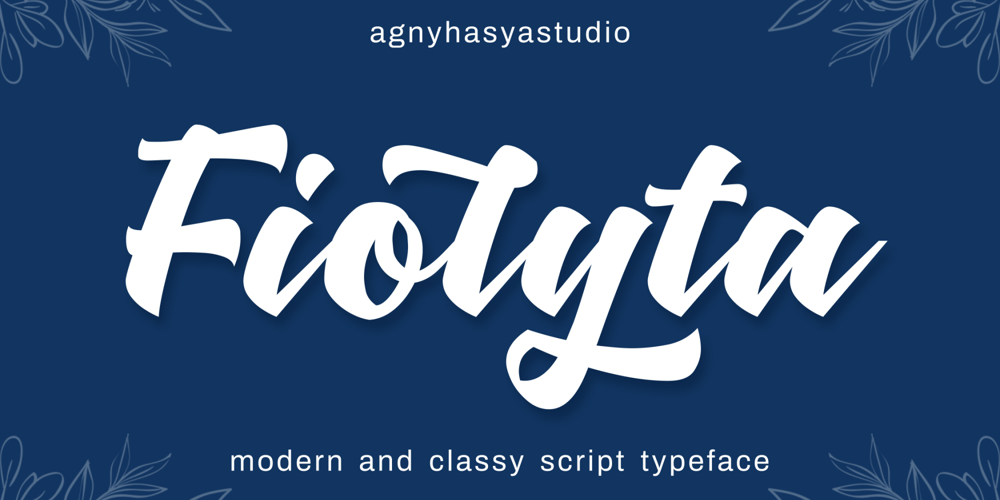
Fiolyta Font Family was designed by Firman Maulana and published by Agny Hasya Studio. Fiolyta contains 1 styles and family package options. Fiolyta is a modern and classy script typeface featured with upper case and lower case, numerals, punctuation, and OpenType Features. Perfect for your design projects like logos, branding, advertising, product designs, stationery, photography, art quotes, wedding designs, fashion designs, and more.